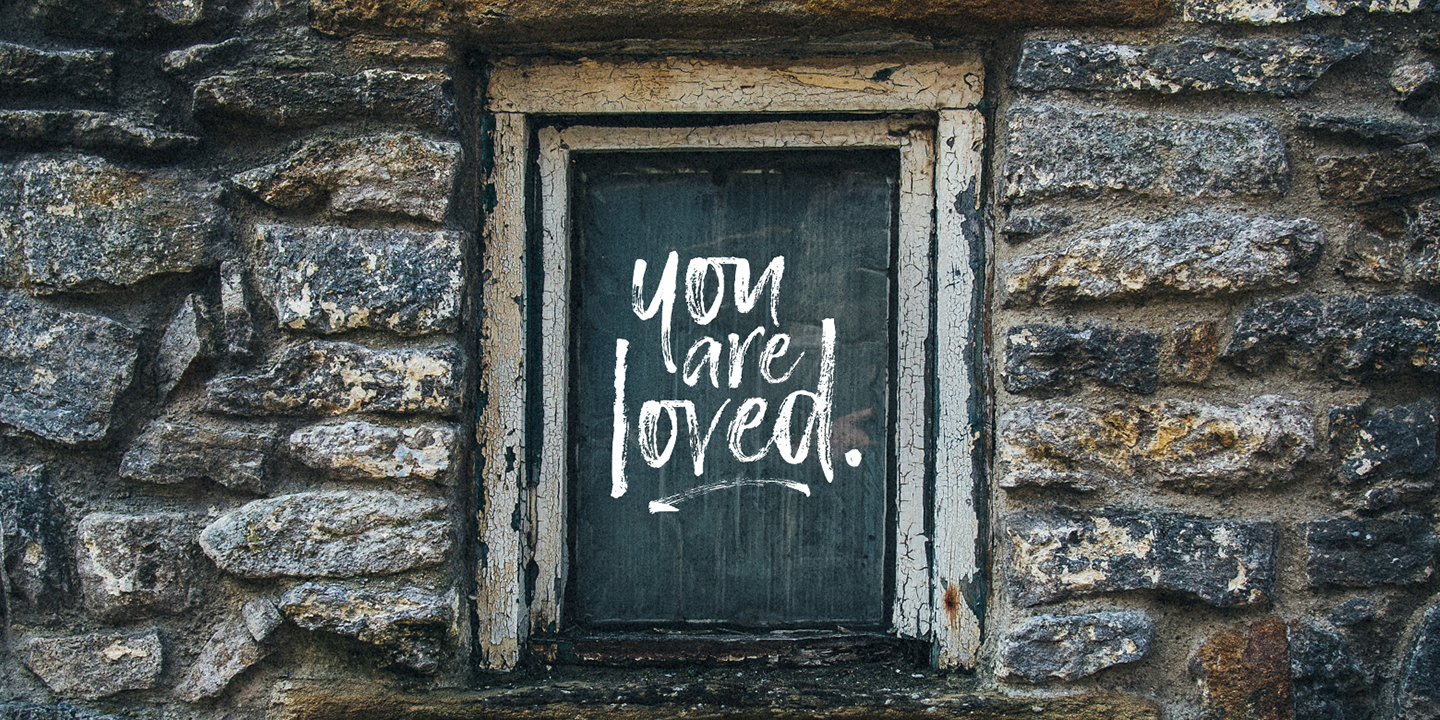
The Brestonk Font is perfect for various design applications including logo design, branding projects, poster creation, social media graphics, website headers, business cards, packaging design, and editorial layouts. This versatile typeface works exceptionally well in both digital and print media.
What makes Brestonk Font exciting is its unique blend of modern aesthetics with classic readability. The font features carefully crafted letterforms that maintain excellent legibility while delivering a distinctive personality that sets your designs apart from the competition. Its balanced proportions and thoughtful spacing make it ideal for both headline and body text applications.
The Brestonk Font family includes multiple weights and styles, offering designers flexibility in their creative projects. The family typically consists of regular, bold, light, and italic variations, providing comprehensive coverage for diverse design needs and ensuring consistency across different design elements.
Whether you're working on corporate branding, creative advertising, or personal projects, Brestonk Font Free Download delivers the professional quality and visual impact that modern designers demand. The font's contemporary style combined with its practical functionality makes it an essential addition to any designer's typography toolkit, perfect for creating memorable and engaging visual communications.